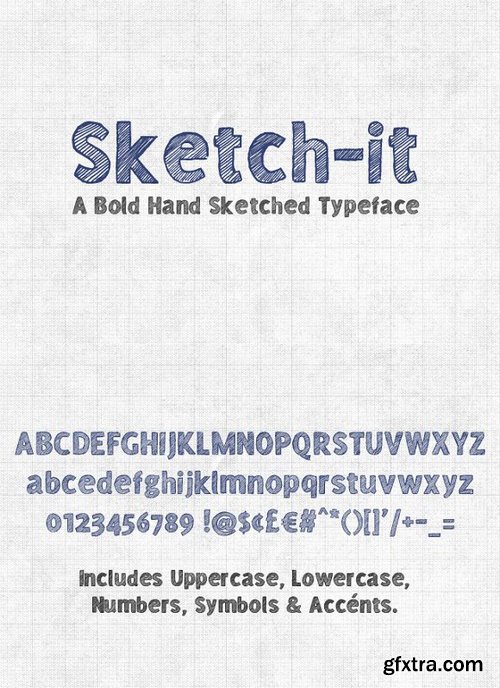
Sketch-it is a bold, hand-drawn typeface with humanist influences. It combines sketchiness with even shapes and straight lines, making it suitable for both playful and more professional uses. It has been created by hand sketching each individual letter and then scanning and tracing.